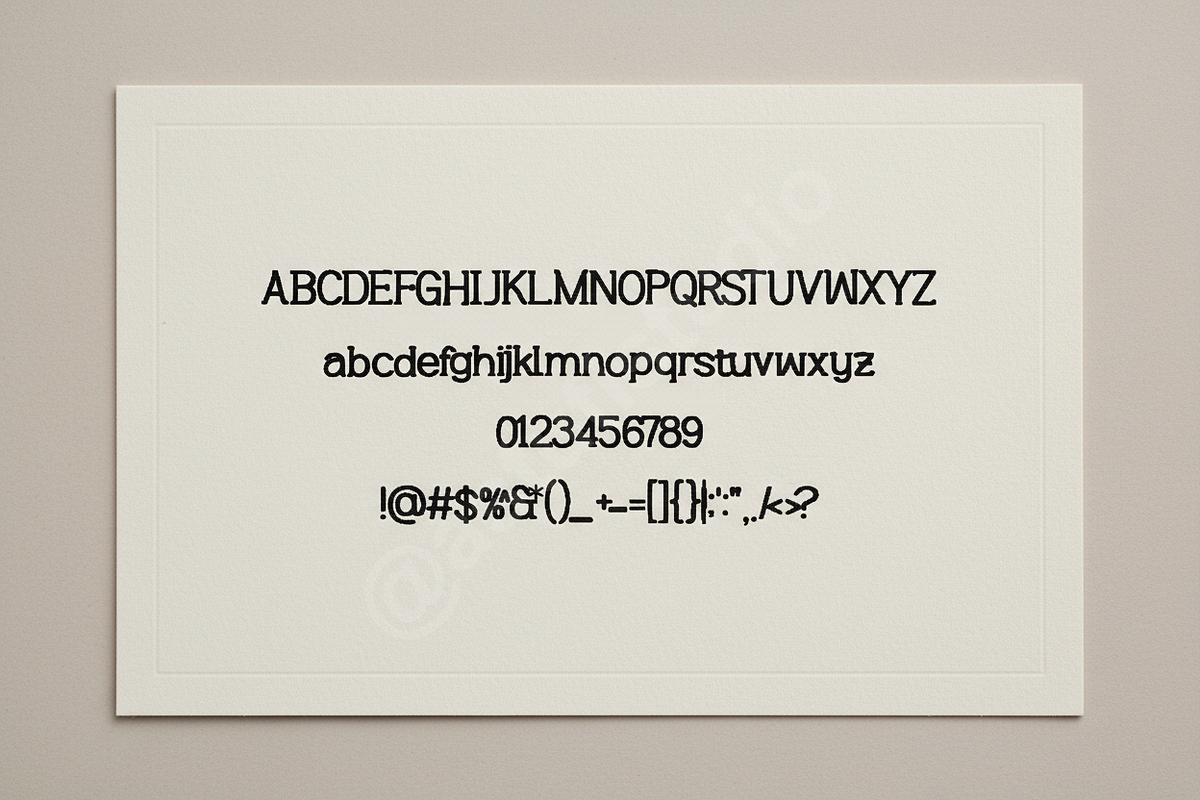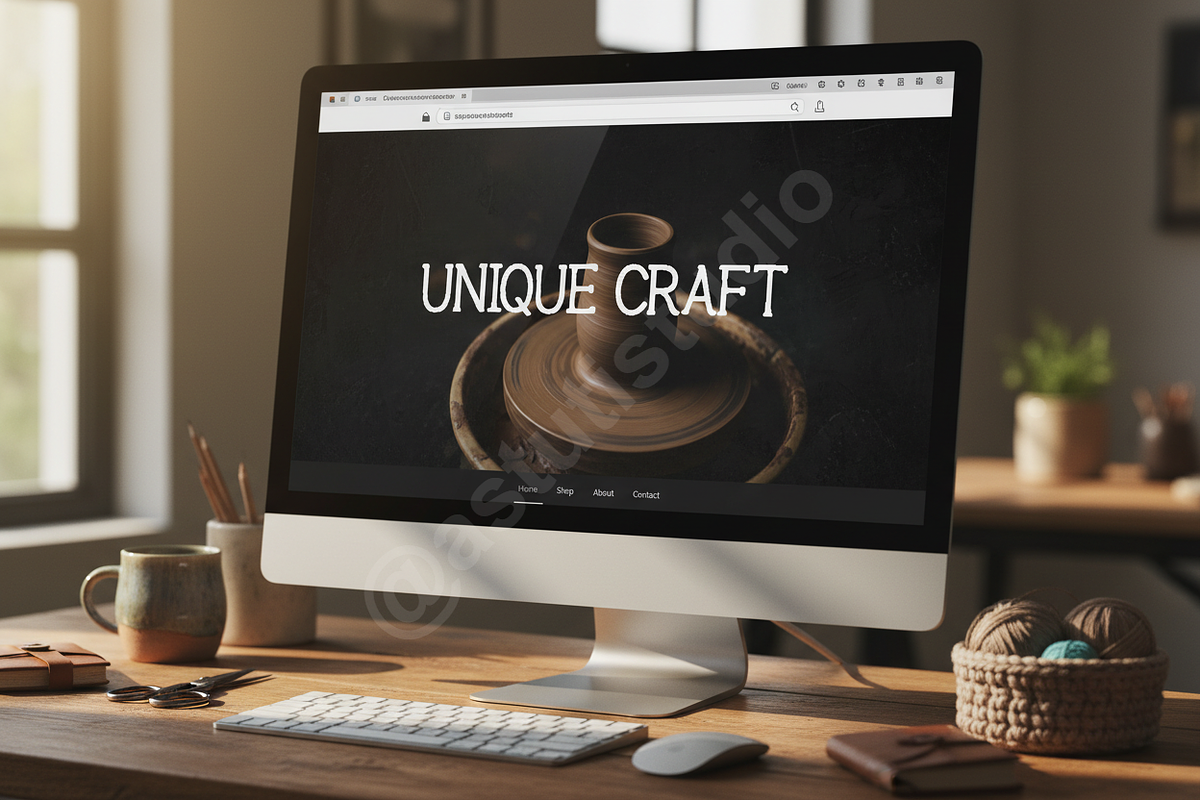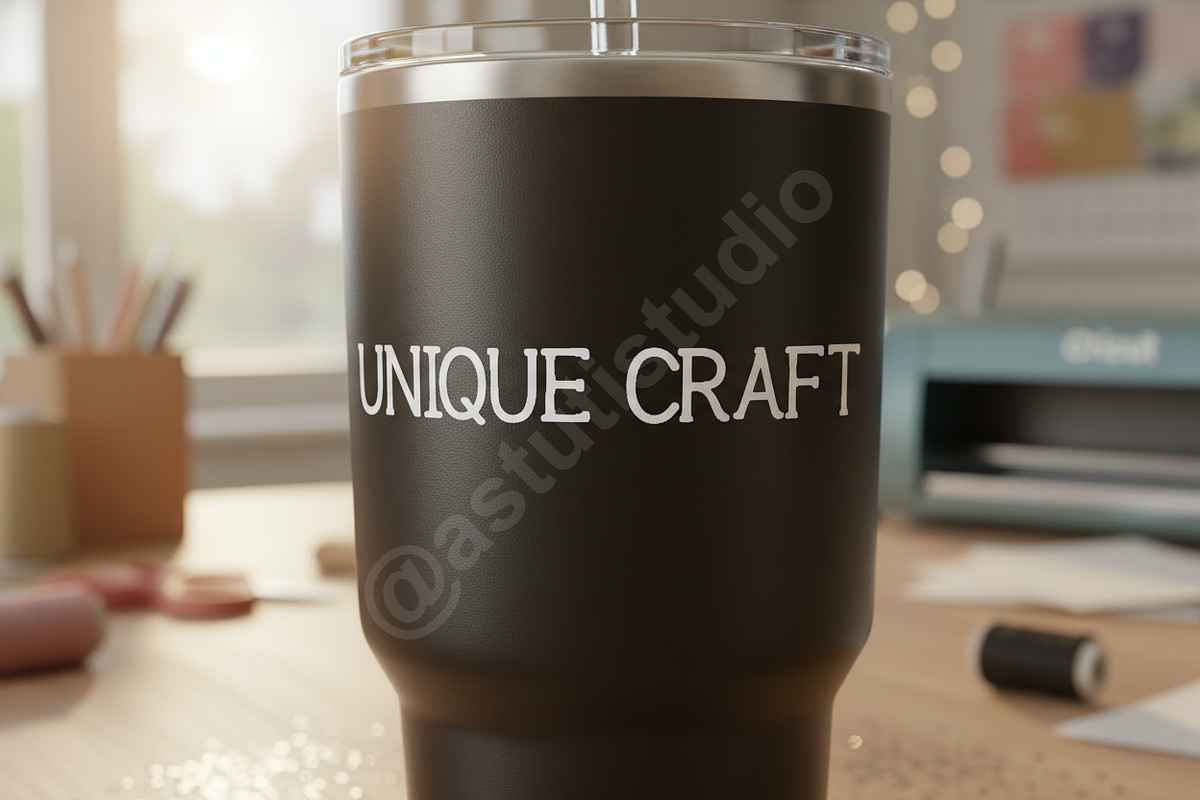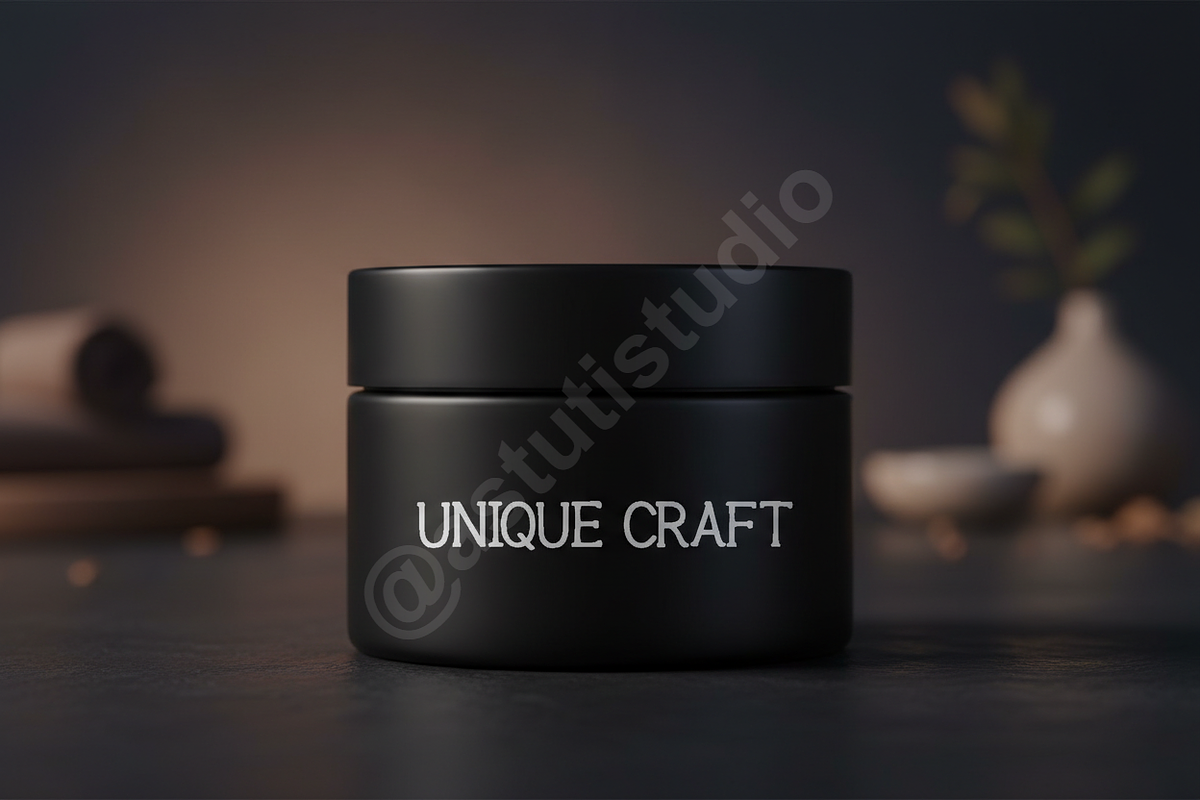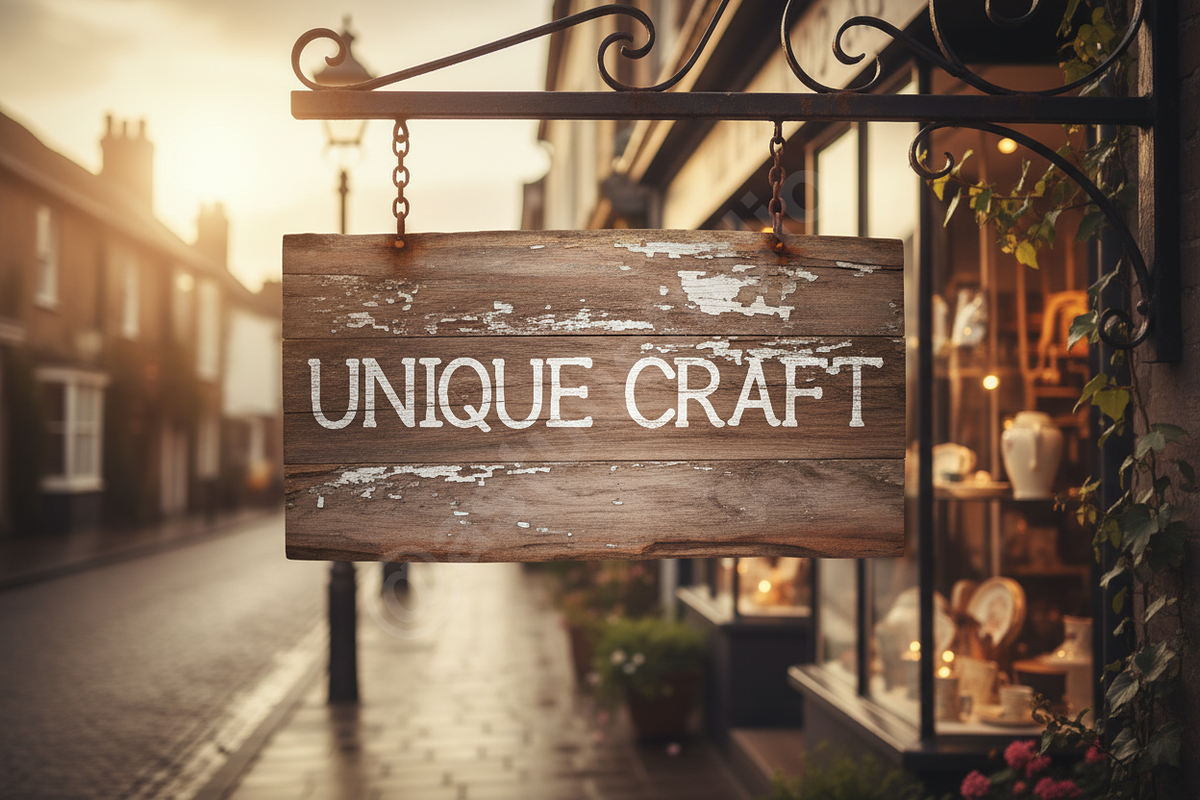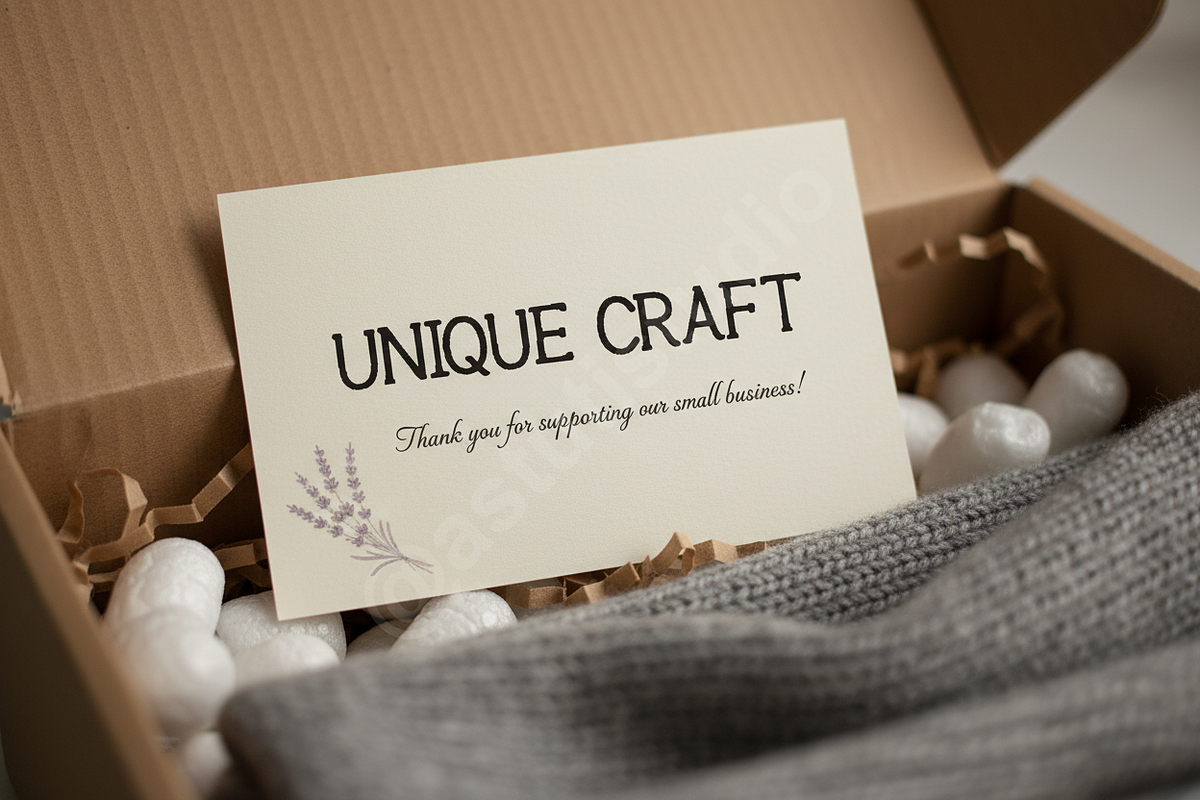
Fixome - Modern Elegant Sans Serif F
Introduction: Elevate your designs with Fixome, a meticulously crafted modern sans serif font that embodies sophistication and timeless elegance. With its clean lines and balanced proportions, Fixome is designed to bring a touch of luxury to any project. It's the perfect choice for high-end branding, captivating editorial layouts, and impactful social media graphics, ensuring your message is conveyed with unparalleled style and clarity.
Features: • Classic uppercase and lowercase characters. • Comprehensive numbering and punctuation set. • Extensive multilingual support to reach a global audience. • Refined ligatures and stylistic alternates for bespoke typography. • Clean, minimalist aesthetic optimized for both print and digital applications. • Excellent readability across various sizes and mediums.